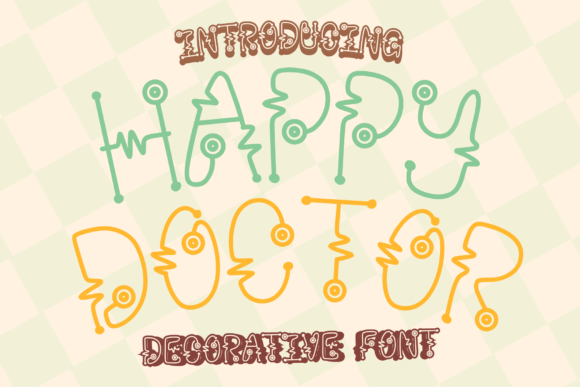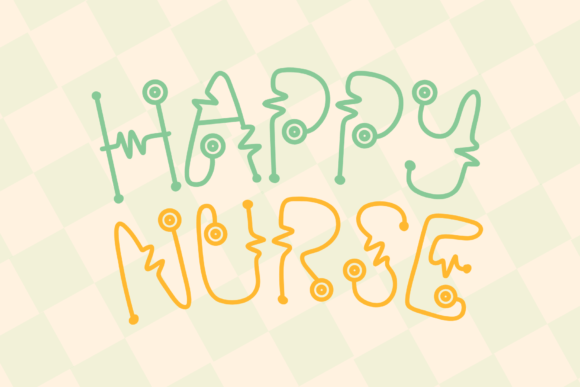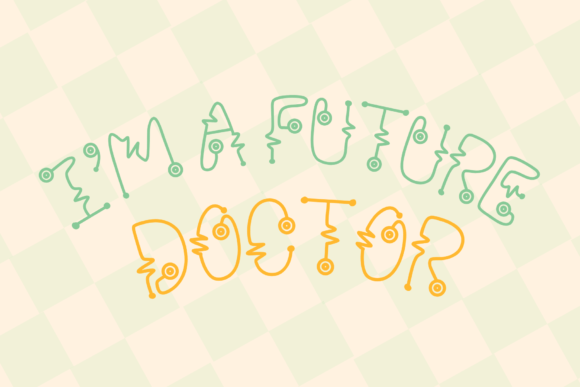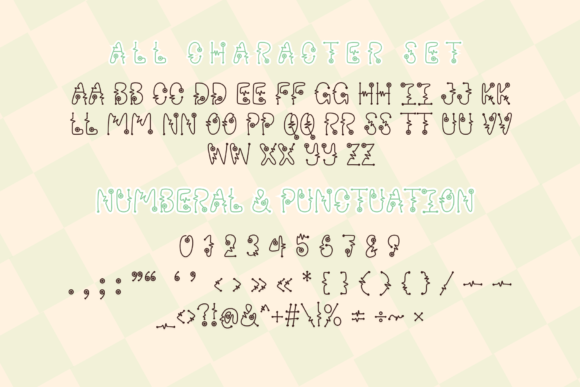
Happy Doctor Font: A Playful Decorative Font for Cute DIY Projects
About the Happy Doctor Font
The Happy Doctor Font is here to transform your projects with its distinctive character and style. Happy Doctor is a cute decorative font. It embodies playfulness and authenticity and is the perfect choice for all your favorite projects such as blog posts, logos, branding, ads, invitations, greeting cards, planners, photo albums, decorations, and more. Add it to any of your designs, and enjoy the results!
Happy Doctor’s playful character makes it ideal for projects requiring a friendly, approachable feel. It excels in headlines, logos, short-form text on packaging, and social media graphics. However, its decorative nature makes it less suitable for body text or UI elements where readability is paramount; extended use could hinder legibility.
Pair Happy Doctor with a clean sans-serif like Open Sans for a balanced contrast, or a classic serif like Garamond for a more sophisticated feel. For a bolder statement, consider pairing it with a geometric sans-serif such as Futura. Avoid pairing it with other highly decorative fonts to prevent visual clutter.
The font’s overall personality is undeniably cheerful and approachable, making it a strong choice for brands targeting a young, playful audience or projects needing a whimsical touch.
Happy Doctor Font Usage Examples
Happy Doctor Font Example